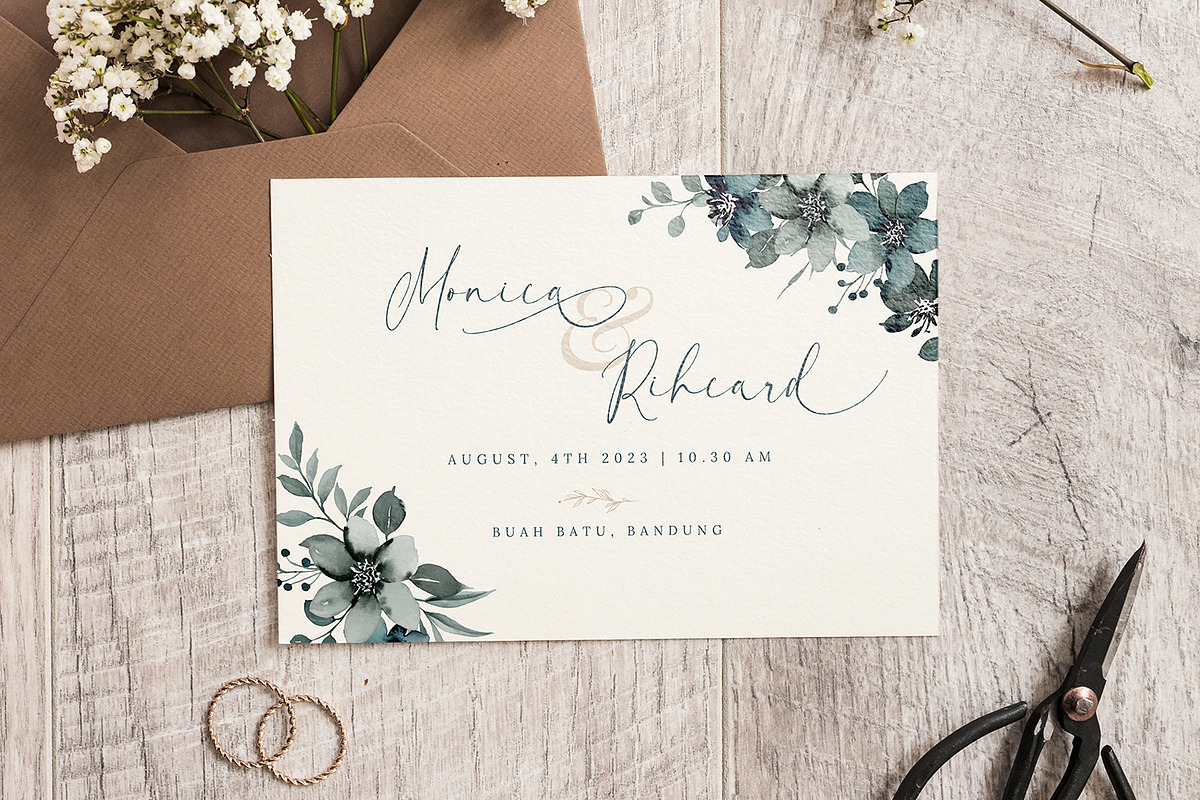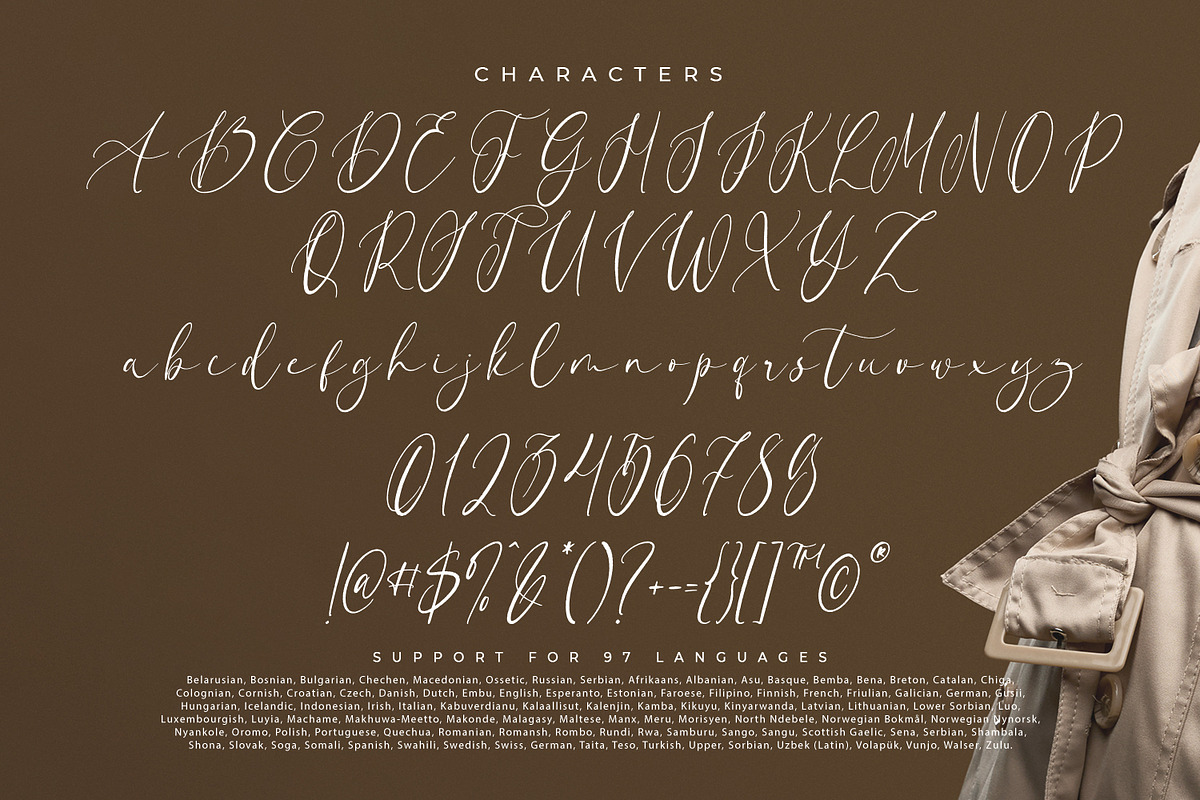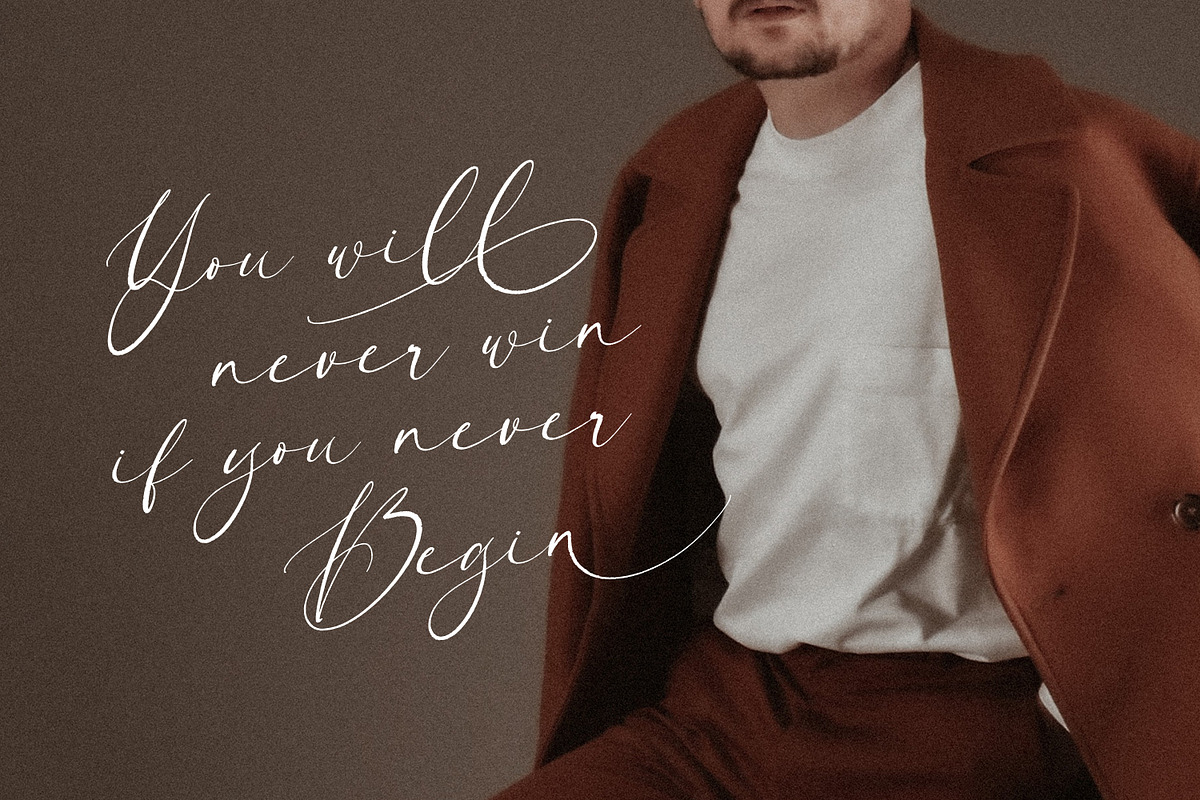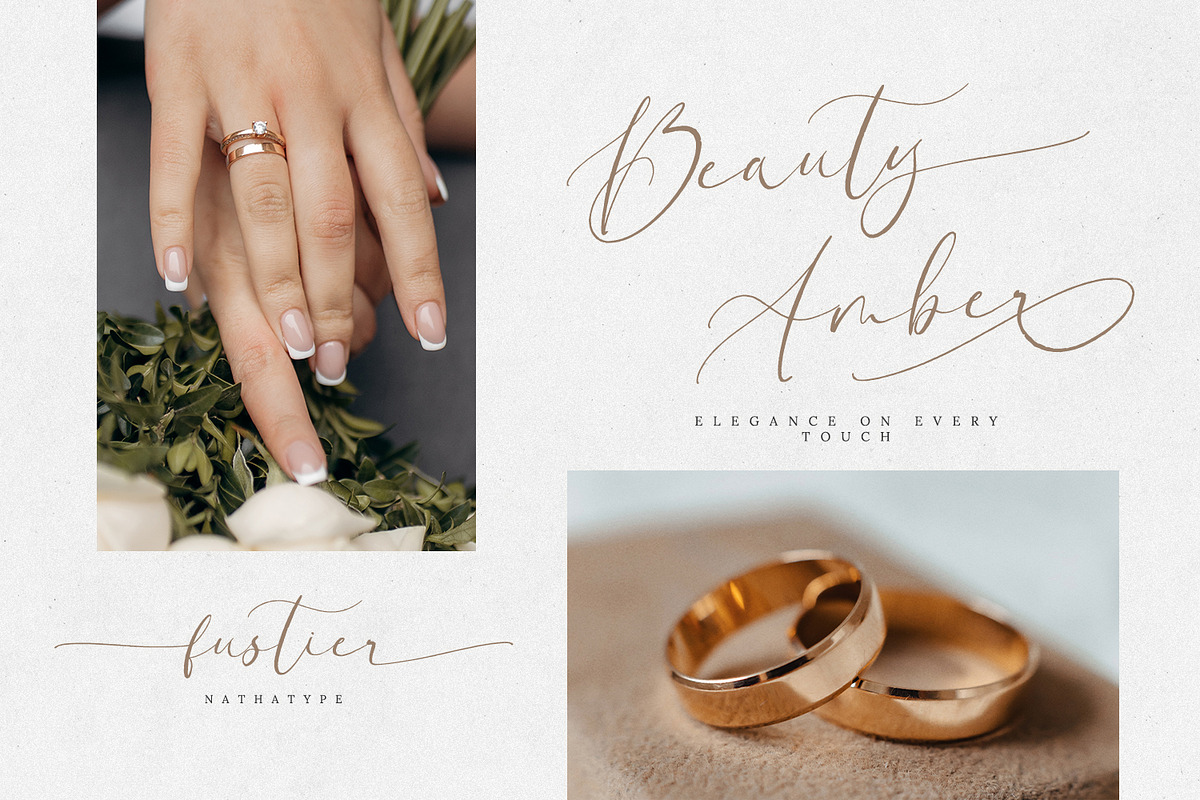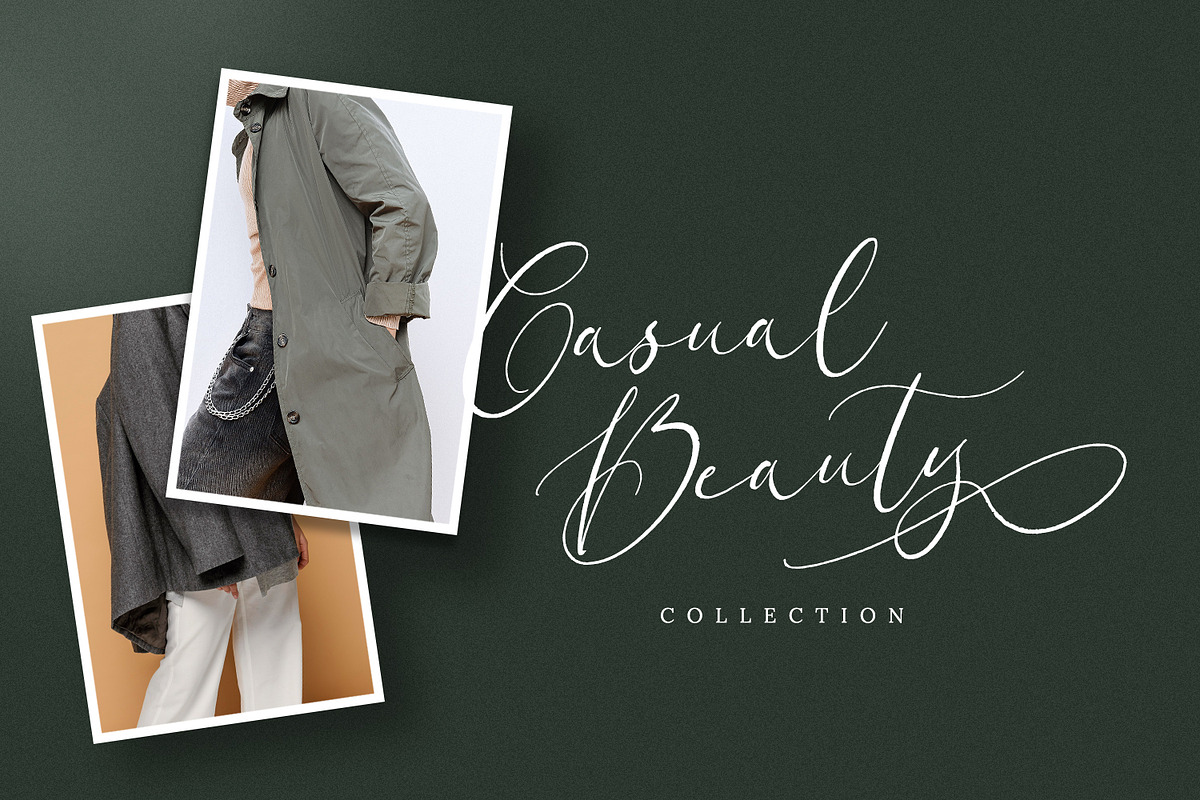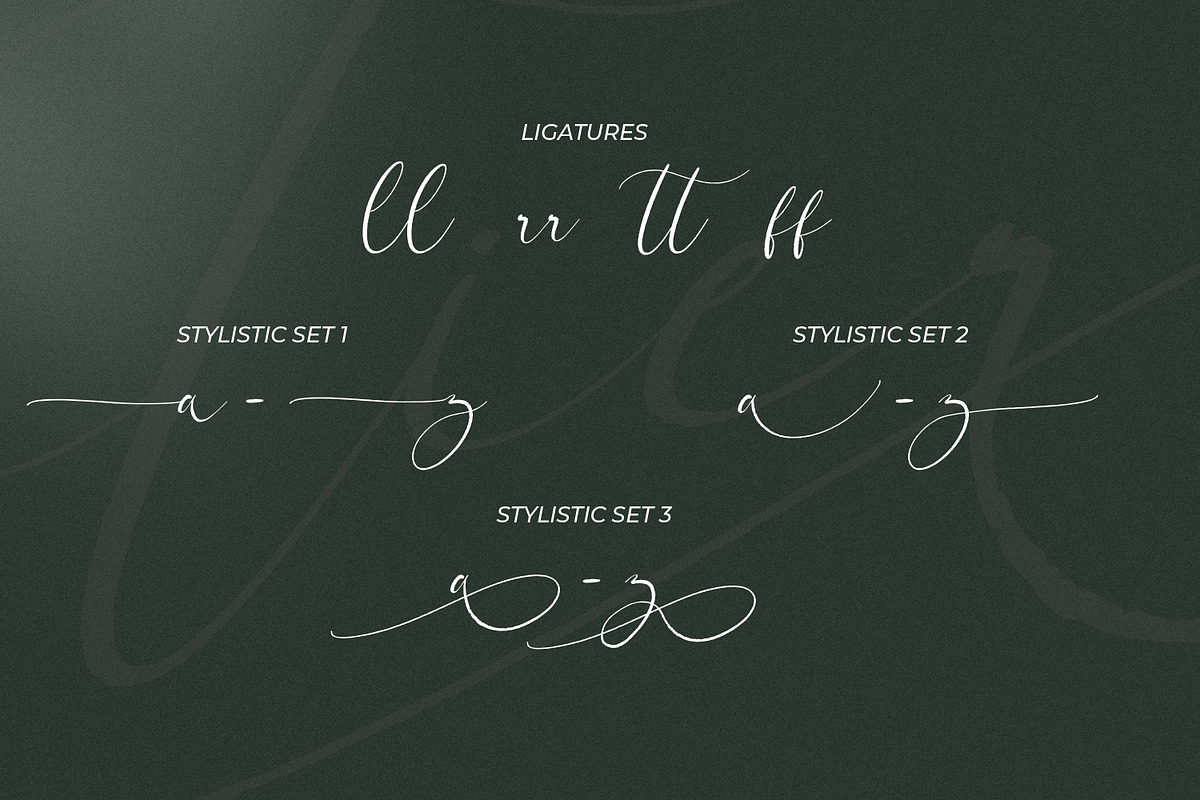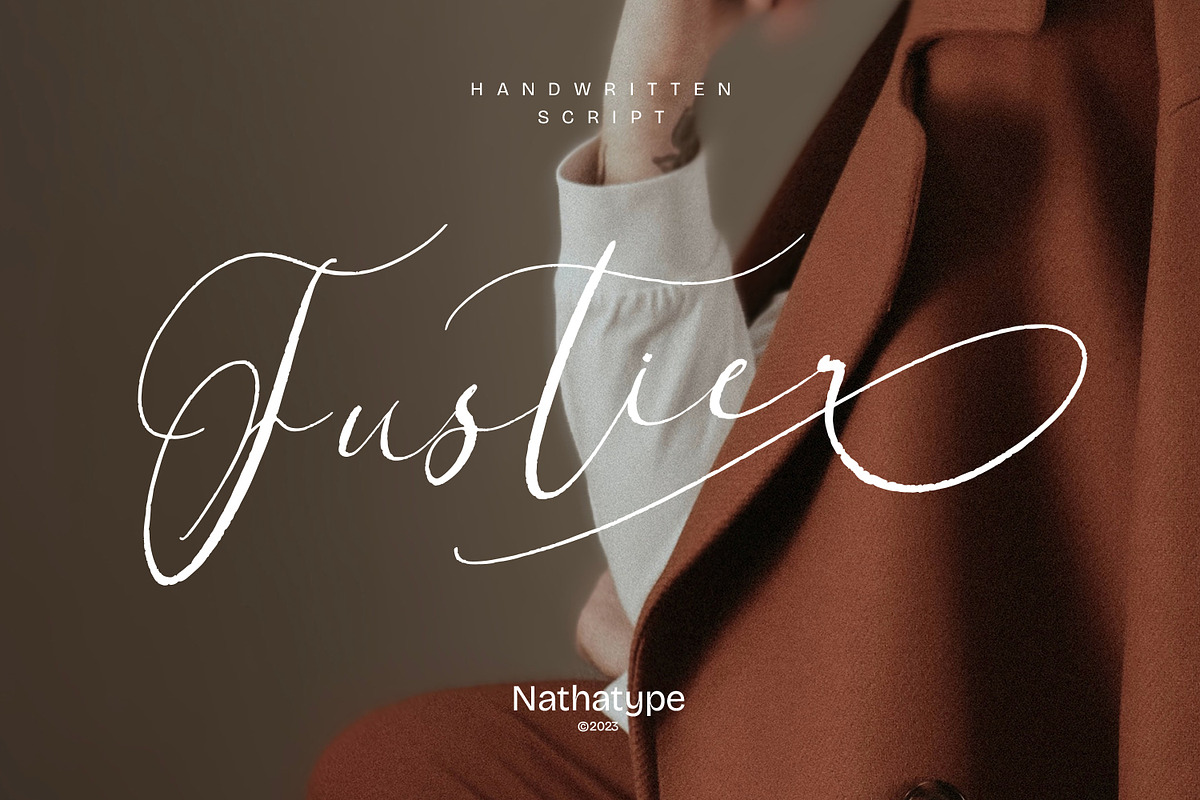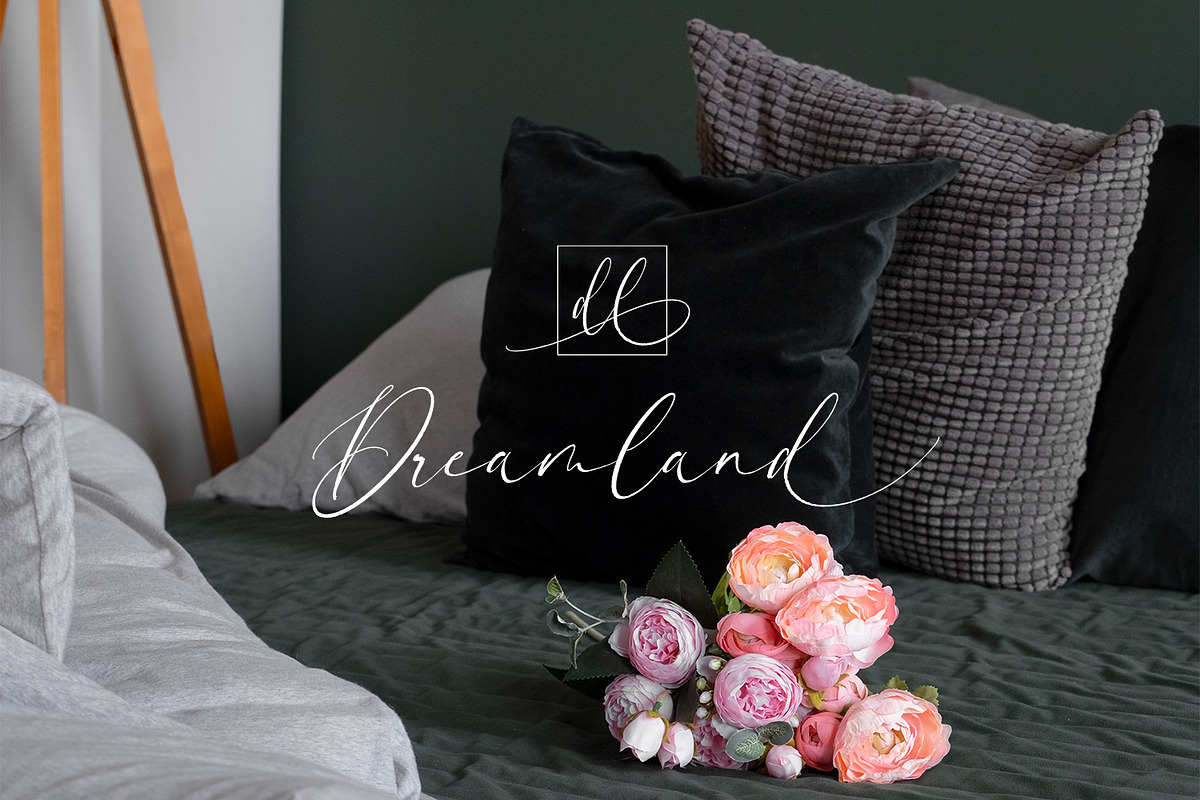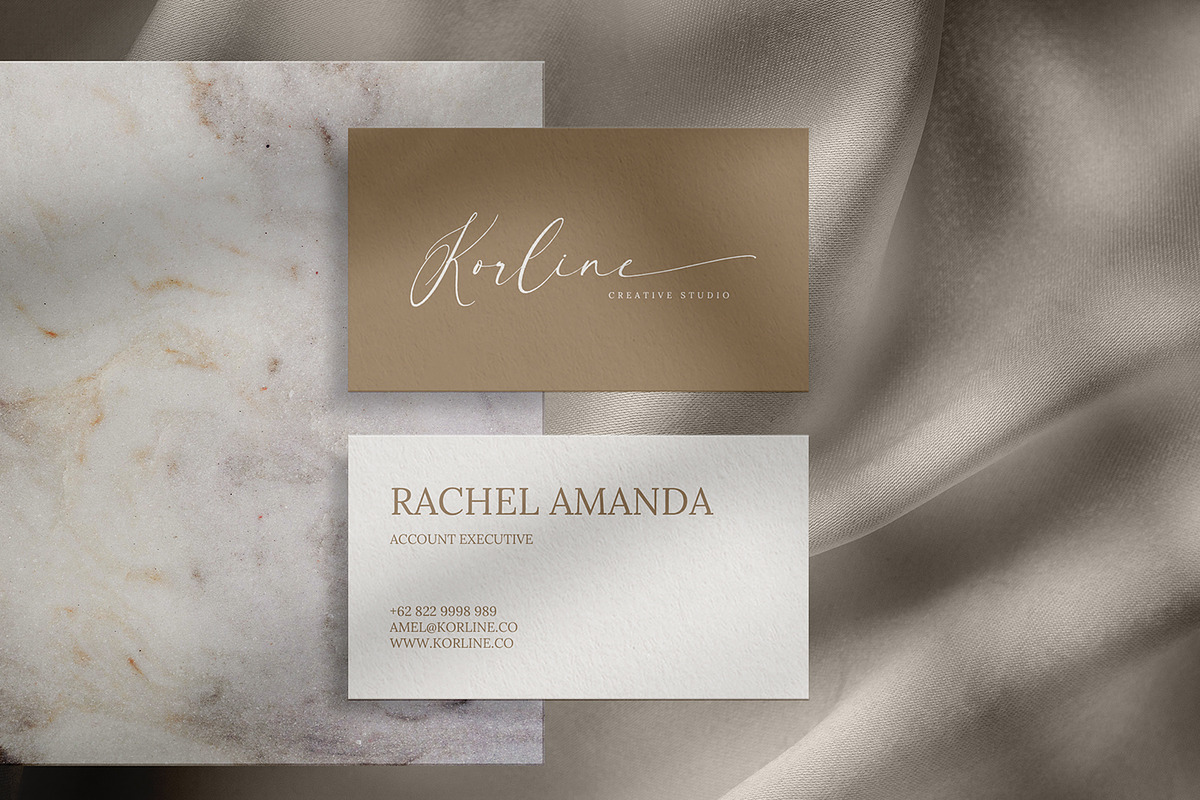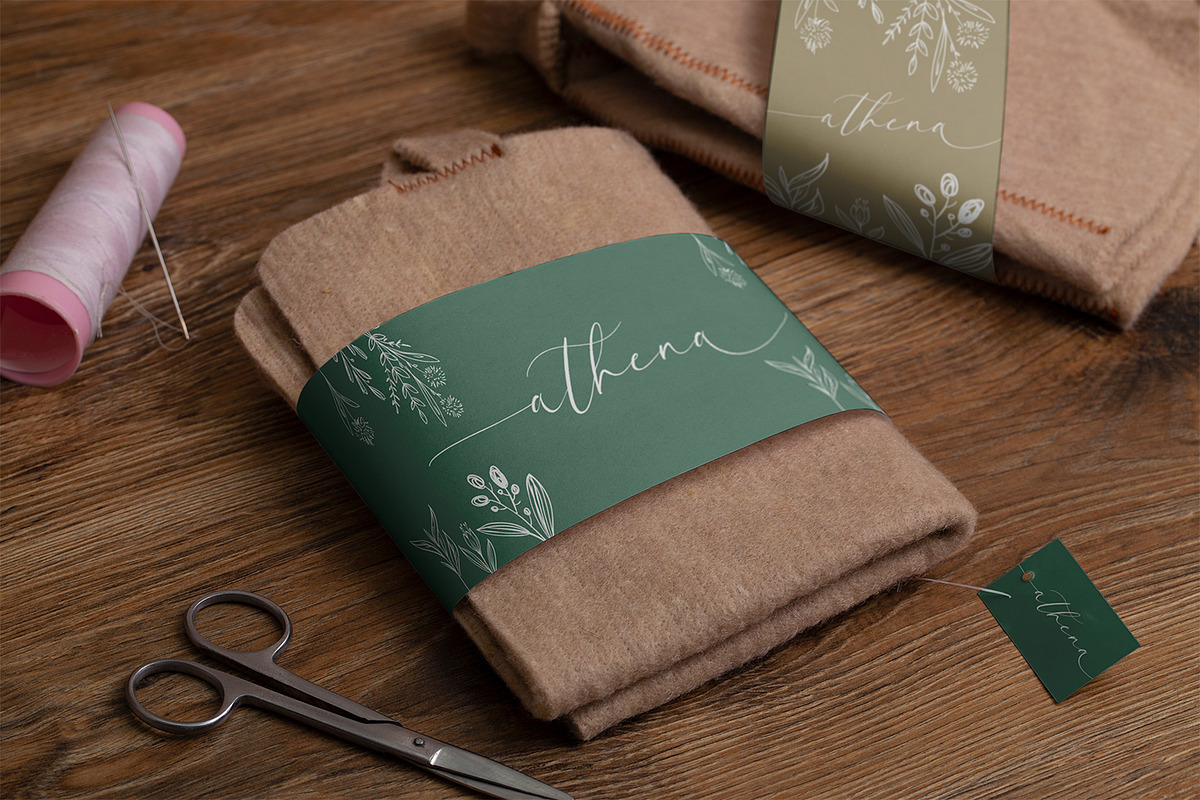
Fustier
Fustier is a captivating script font that elegantly captures the essence of fluid cursive handwriting with a mesmerizing twist. Each letter in Fustier boasts an exquisite high-contrast design that exudes a bold yet delicate presence. The curves and loops dance across the page, evoking the sensation of ink flowing seamlessly from a skilled hand. With an abundance of swinging details, Fustier offers a captivating play of curves and swashes that ensure a harmonious flow from letter to letter. The impeccable craftsmanship of Fustier ensures that each character is a true work of art, while the generous spacing between letters maintains readability and legibility. Enjoy the available features here.
- Stylistic Sets
Fustier fits in headlines, logos, posters, flyers, invitations, name cards, branding materials, print media, editorial layouts, and many more. Find out more ways to use this font by taking a look at the font preview.